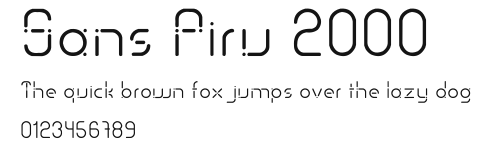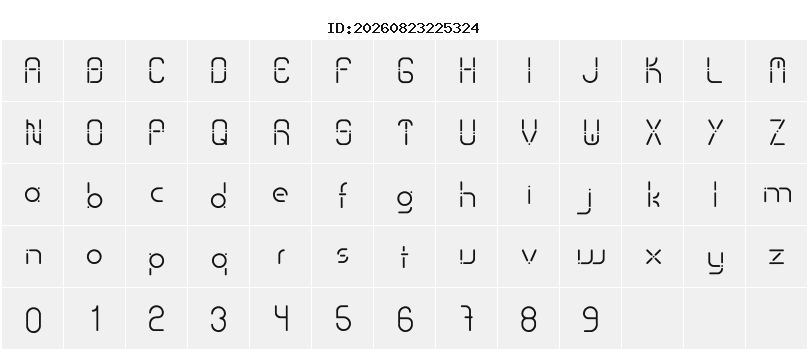
• Font Name: Sans Piru 2000
• Full Font Name: Sans Piru 2000
• Version: Version 1.00; 11 de Julio del 2000
• PostScript Name: Sans Piru 2000
• Character Count: 655
• Designer: High-Logic - Erwin Denissen
• Manufacturer: High-Logic
• Description: Template
About Sans Piru 2000.ttf
Sans Piru 2000.ttf is a modern, elegant sans-serif font designed for ultimate readability and visual harmony. Perfect for branding, headlines, web design, and print materials.